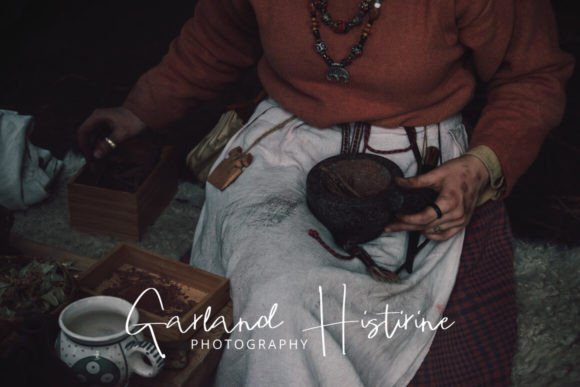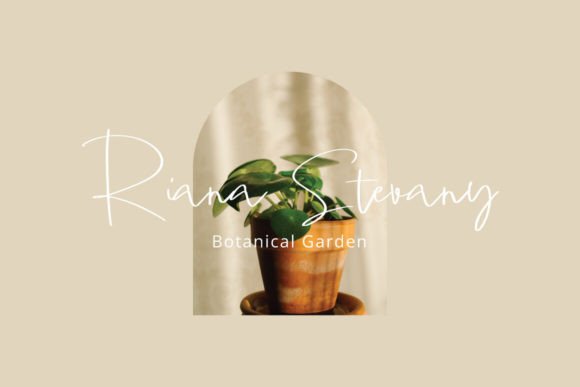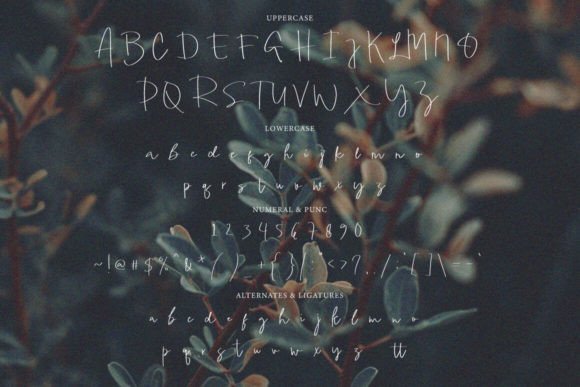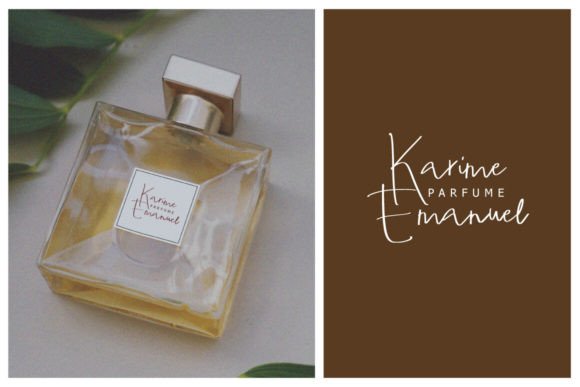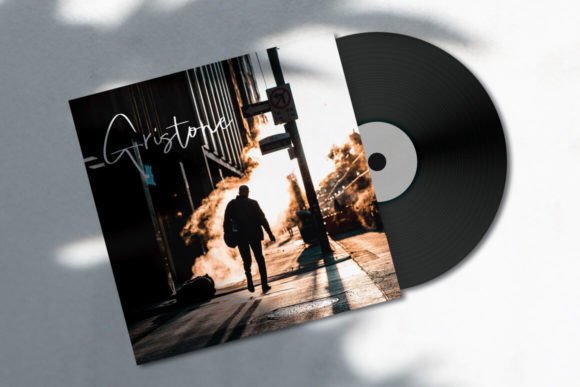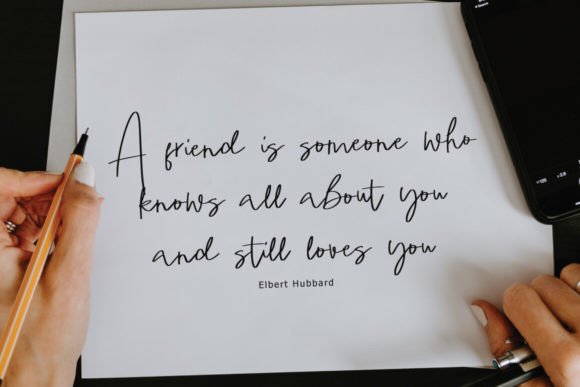
Introduction to Mishella Signature Font Font
Fonts play a crucial role in design, and the Mishella Signature Font font is a typeface that brings both character and versatility to any project. Whether you’re working on a branding project, a website, or a print design, the Mishella Signature Font font offers a unique style that can elevate your work.
Mishella Signature is a stylish and elegant font with a smooth, single-line design.
Its simple, flowing strokes make it perfect for personal signatures, logos, and branding The clean and modern look adds a touch of sophistication to any project.
Key Features of Mishella Signature Font Font
Why Choose Mishella Signature Font Font?
The Mishella Signature Font font is more than just a typeface – it’s a design tool that helps you communicate your message with style and clarity. Its unique character set and versatile design make it suitable for a wide range of applications, from elegant invitations to bold headlines.
With its carefully crafted letterforms and balanced proportions, the Mishella Signature Font font ensures readability and visual appeal across all mediums.
What makes Mishella Signature Font font special?
The Mishella Signature Font font stands out with its unique design, exceptional readability, and versatility across various design applications.